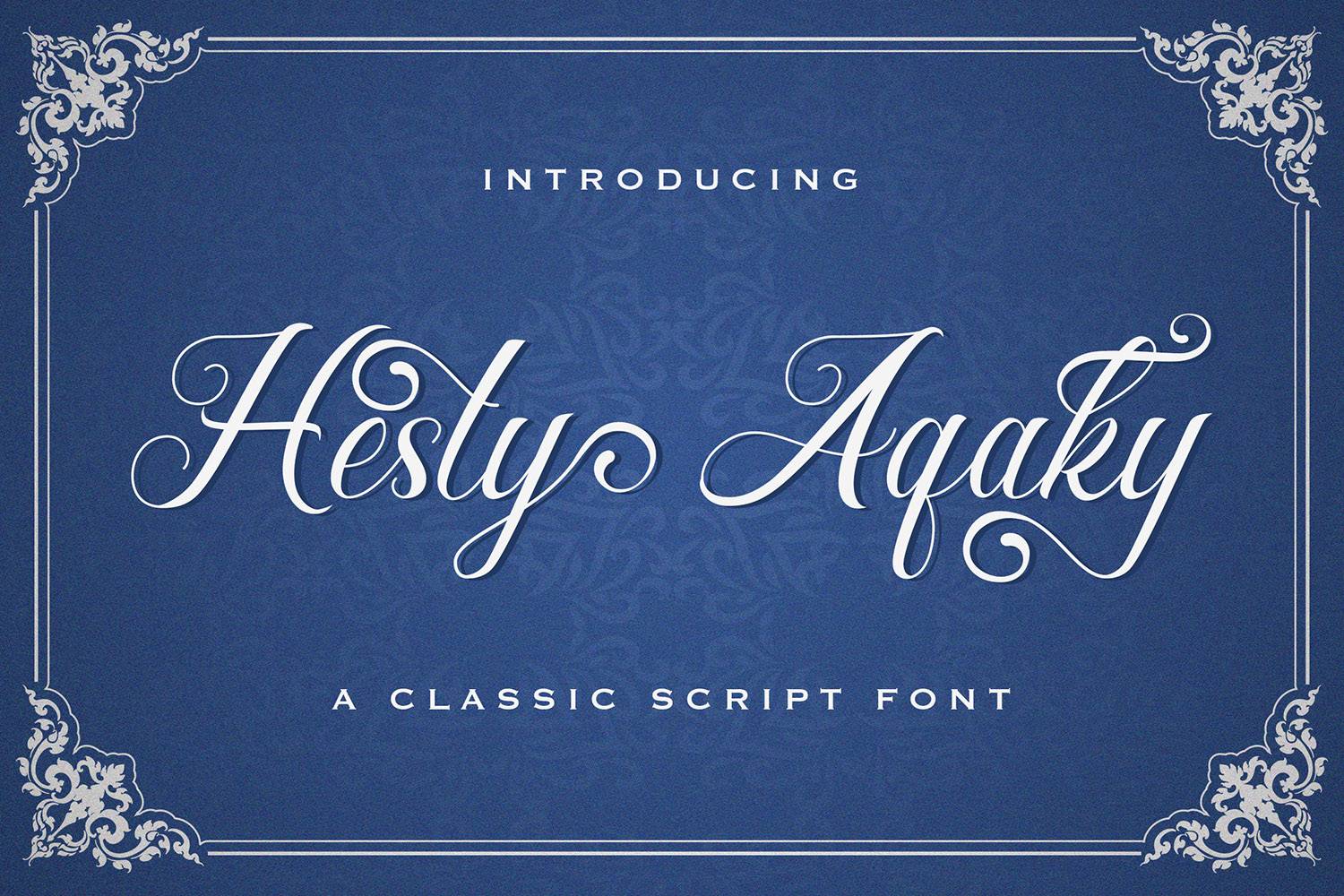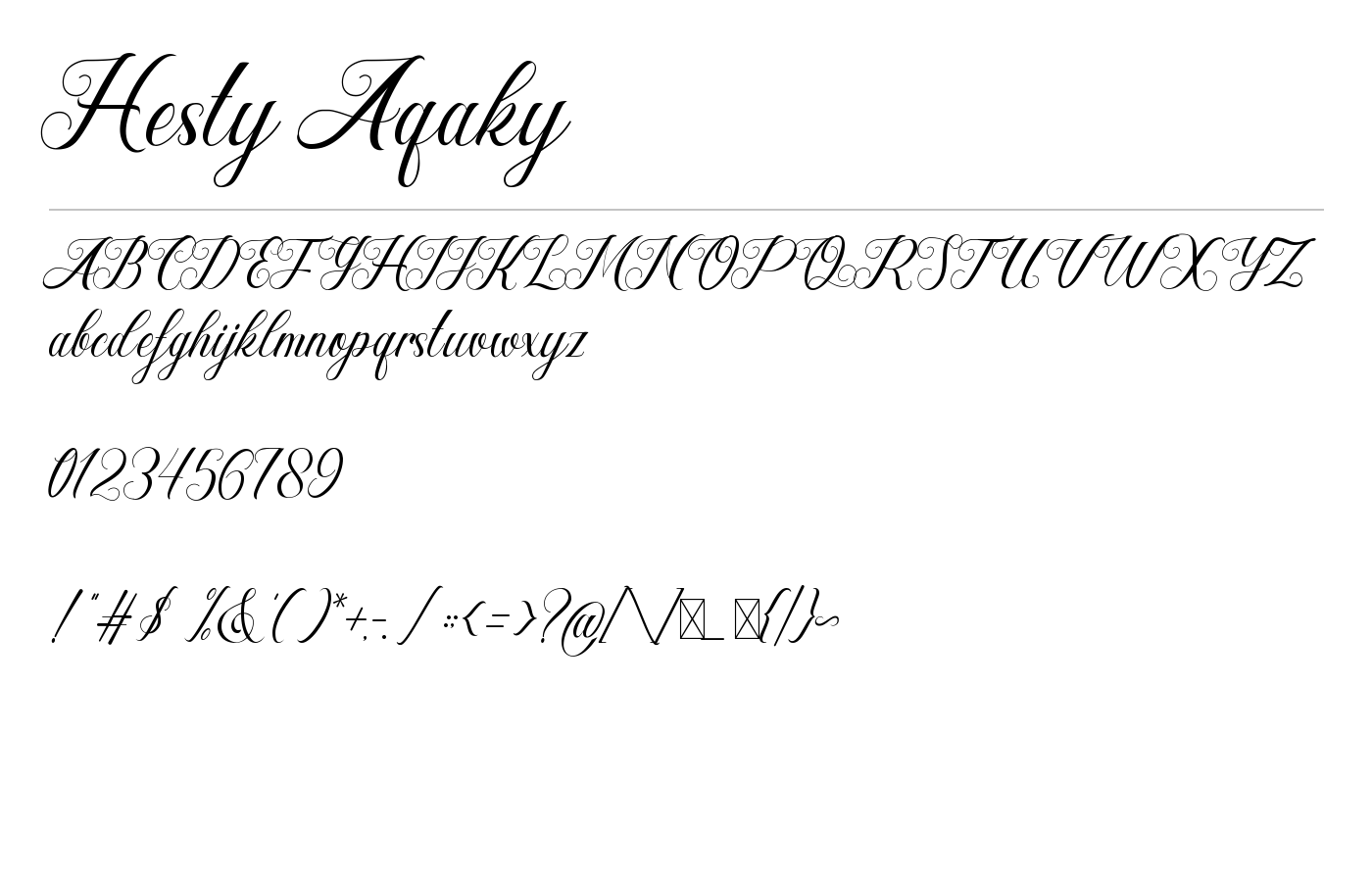
Hesty Aqaky is an elegant script font characterized by its delicate, flowing strokes and ornate swirls, especially on uppercase letters. Its light weight and high contrast add a refined, graceful feel perfect for luxury branding, invitations, and sophisticated editorial design. This font works best in headlines or decorative uses where a touch of classic, stylish flair is desired.
Hesty Aqaky Font
About Hesty Aqaky Font